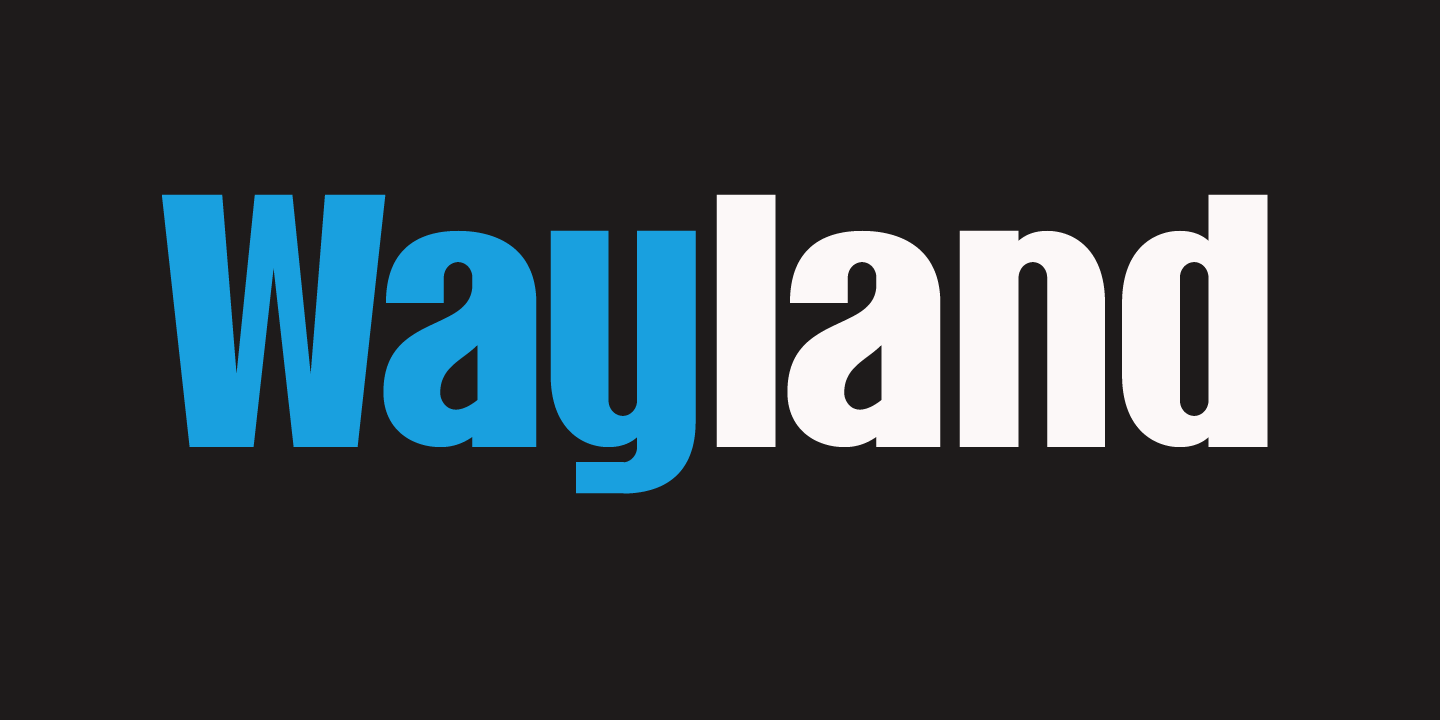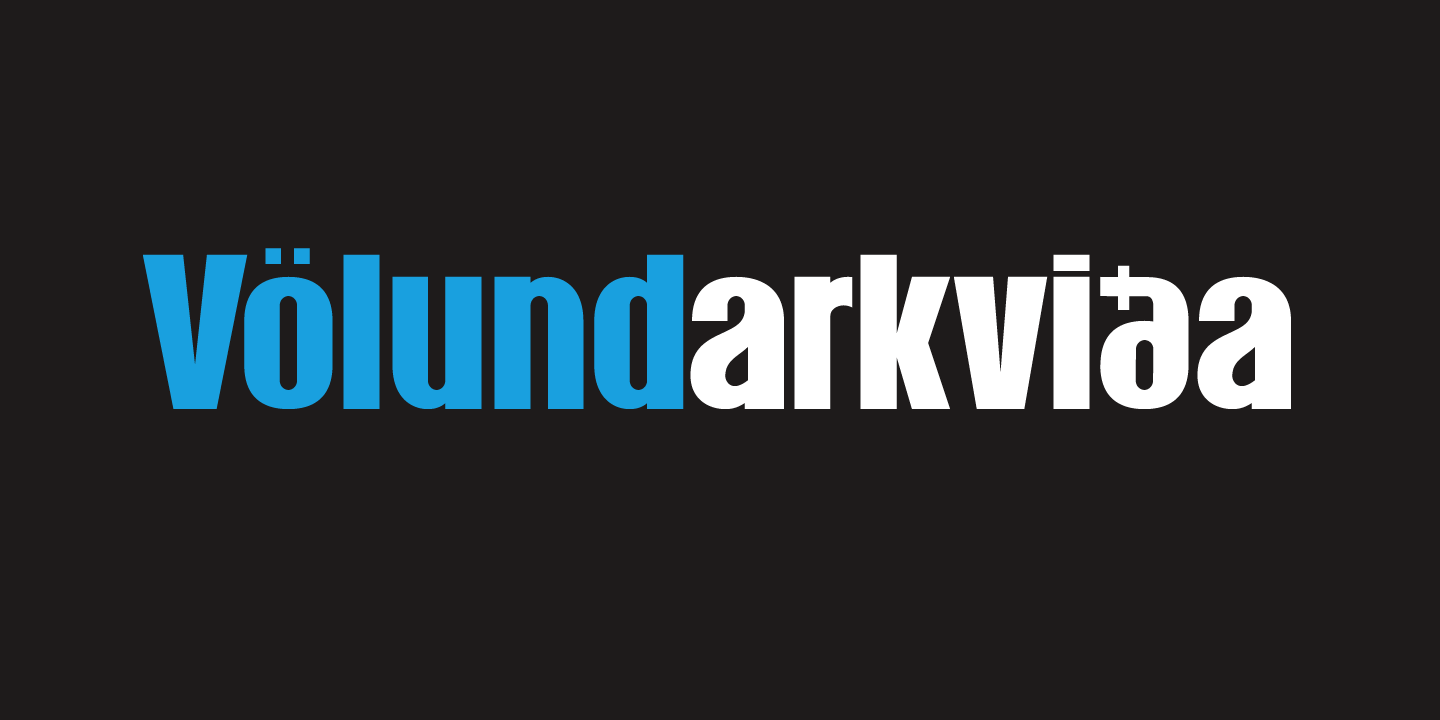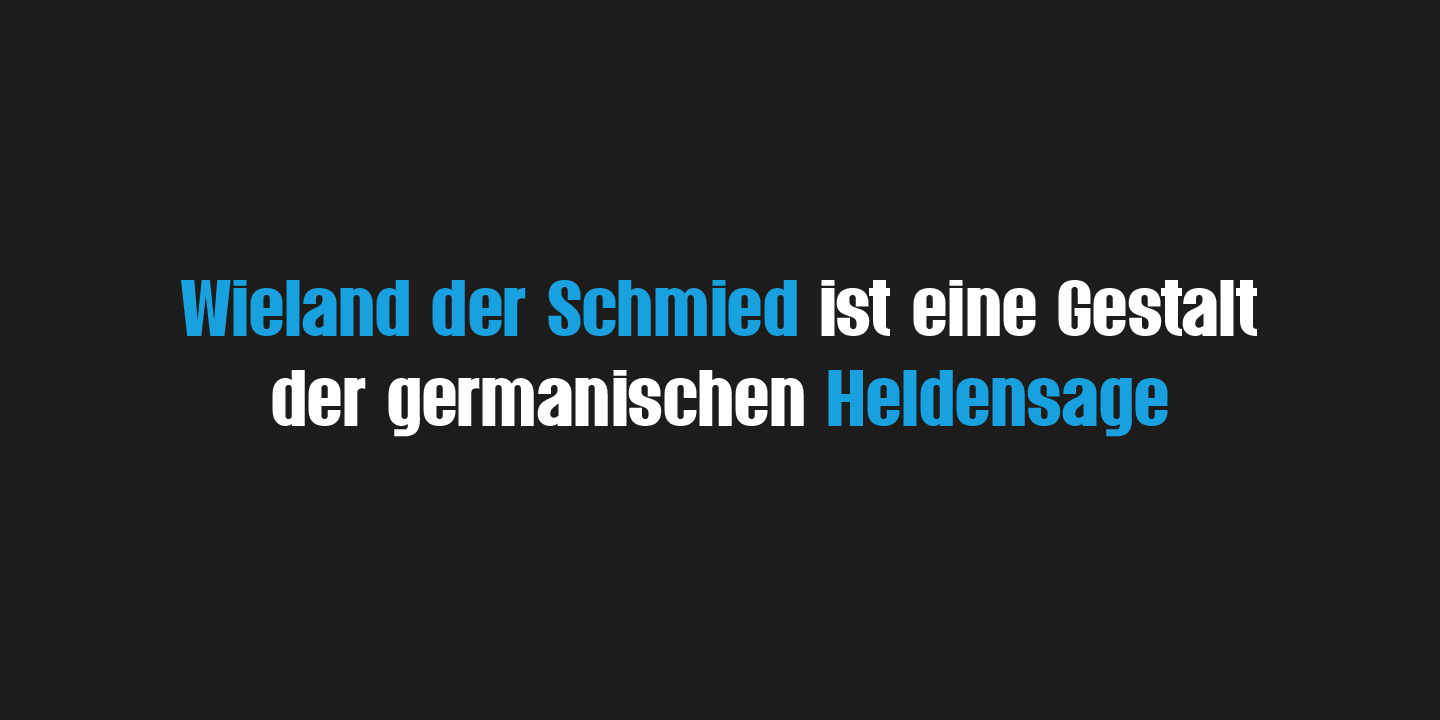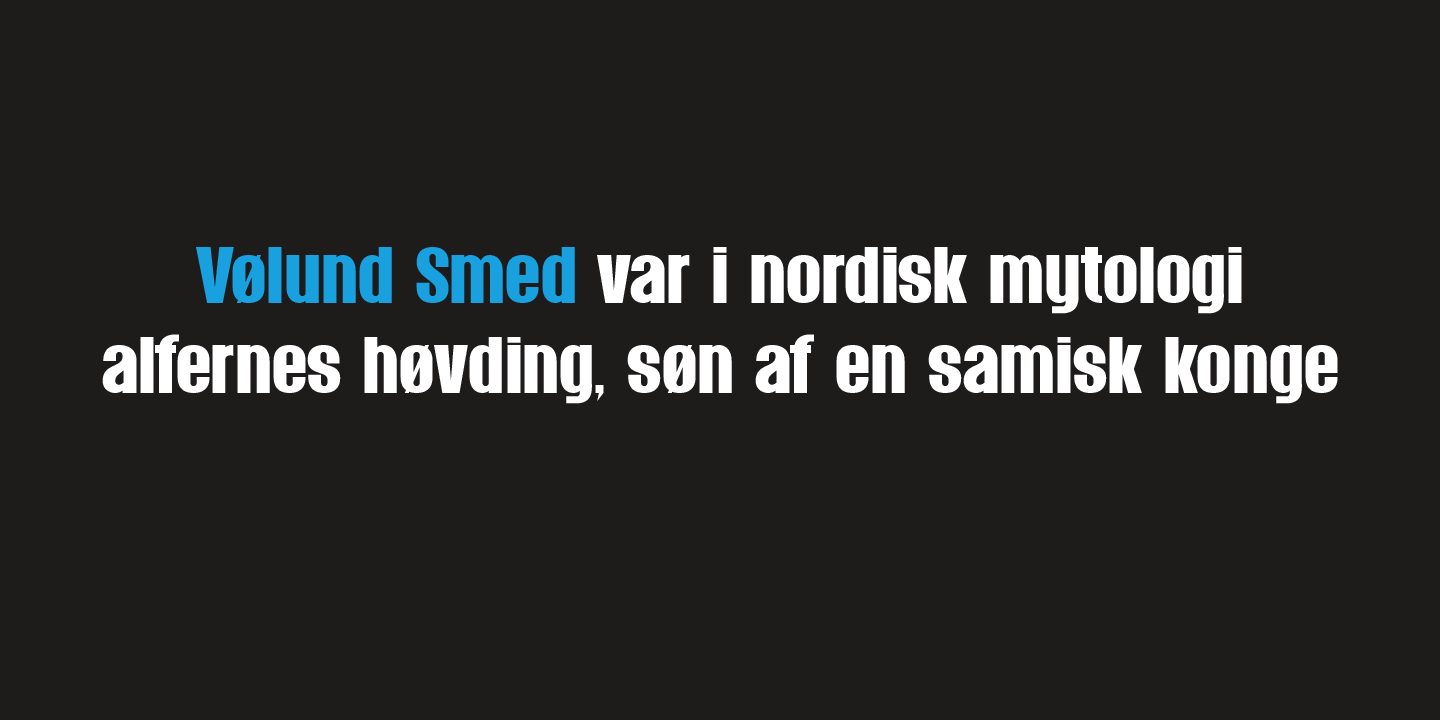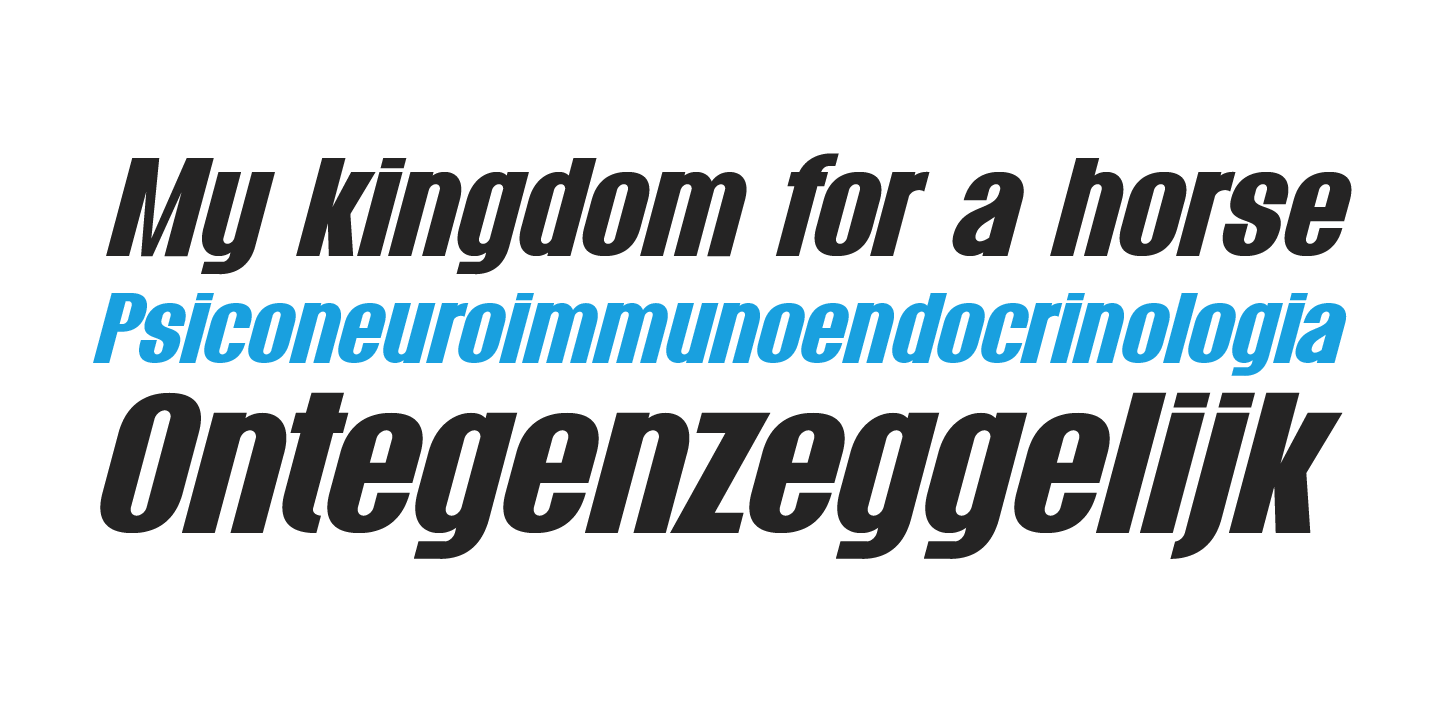
Wayland
Wayland is a modern sans serif family with a bold, condensed build and a clean, geometric feel. Its strong shapes and straightforward structure give it an industrial, impactful voice, while the slanted italic adds extra motion and energy.
With 2 styles included—Regular and Italic—this family offers a compact set for display-driven work that needs clarity and presence. The mix of uppercase, lowercase, and numeric characters makes it a practical choice for branding, posters, packaging, social graphics, and other contemporary design projects.
Designed by Hanoded, Wayland suits work that calls for a modern, dynamic look without feeling overworked. It reads as confident and efficient, making it a smart pick for headlines and identity systems that need a strong visual backbone.